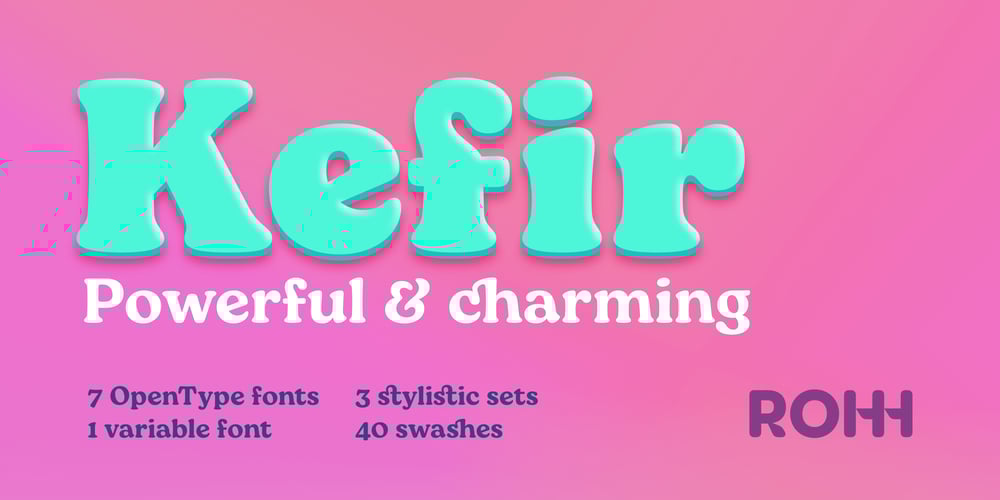
Kefir Font Family was designed by Roch Modrzejewski and published by ROHH. Kefir contains 8 styles and family package options. Kefir is so cool… just look at it! It is that laid-back friend who always knows how to lighten the mood. With its cozy curves and friendly swashes Kefir brings a delightful warmth to any project. Whether you’re crafting a vibrant label, a captivating magazine cover, engaging headline or charming product packaging, Kefir adds a refreshing splash of personality that feels inviting and approachable. It’s a typeface that knows how to look good, keep it light, and still make a statement.Kefir has two additional stylistic sets to adjust the font to your liking and decide if you choose upright or sloping stems (in characters like h, m ,n , a) or go even more playful with some super-friendly letterforms.Key Features• 7 weights• flexible variable font• alternate styles• funky swashes• over 650 retro-cool glyphs• Extended Latin language support